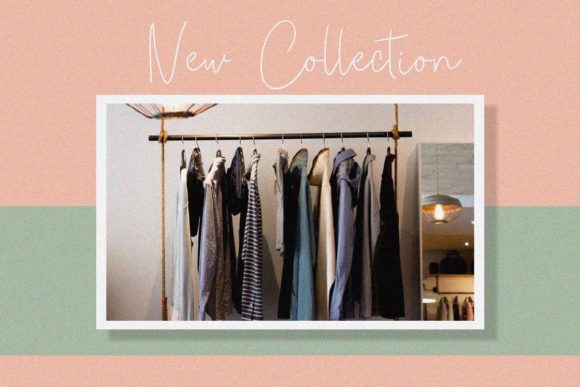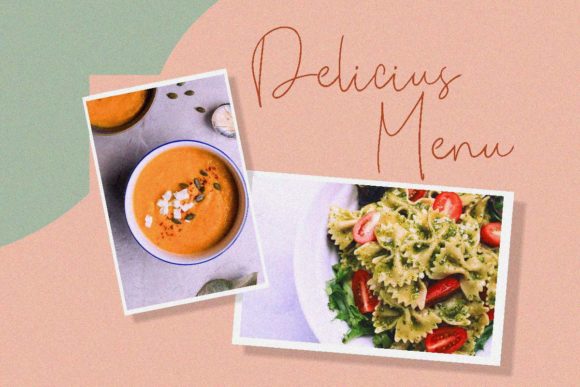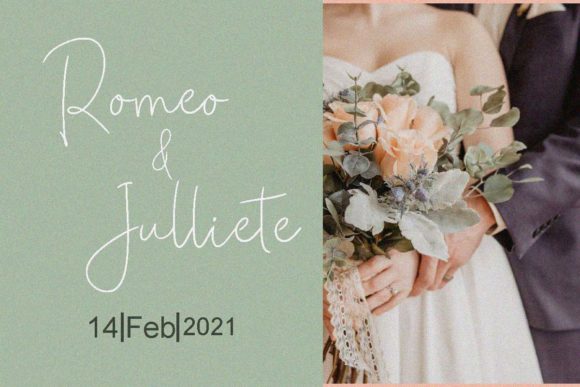
About Romantically Alpha Font
Romantically Alpha is a stunning handwritten font with a delicate and refined appearance. Its thin strokes and beautiful letterforms make it a true masterpiece. This font exudes elegance and charm, making it perfect for a wide range of design projects.
Thin and Delicate: Romantically Alpha features thin strokes and graceful curves, giving it an air of delicacy and sophistication. This makes it ideal for creating designs that require a touch of elegance and refinement.
All-Round Letters: The font’s well-rounded letters add a sense of balance and harmony to the overall design. Each character is crafted with care, ensuring a consistent and polished look throughout the entire font.
Versatile Style: Romantically Alpha is incredibly versatile, making it suitable for various design purposes. Whether it’s used in branding, invitations, stationery, social media posts, or other creative projects, it will seamlessly adapt to the theme and elevate the visual appeal.
Masterful Design: The font’s craftsmanship and attention to detail showcase its high-quality design. Its refined appearance makes it an excellent choice for projects that require a touch of sophistication and artistic flair.
Spectacular Designs: With Romantically Alpha, you have the freedom to create spectacular designs that capture the hearts of your audience. Its elegance and versatility offer endless creative possibilities.
Fall in Love: As you work with Romantically Alpha, you’ll undoubtedly fall in love with its beauty and versatility. It can add a romantic and enchanting touch to your designs, leaving a lasting impression on anyone who sees them.
Whether you’re designing wedding invitations, greeting cards, logos, or any other project that demands a touch of sophistication, Romantically Alpha is the perfect choice. Embrace its beauty and create stunning designs that evoke emotions and capture the essence of romance.